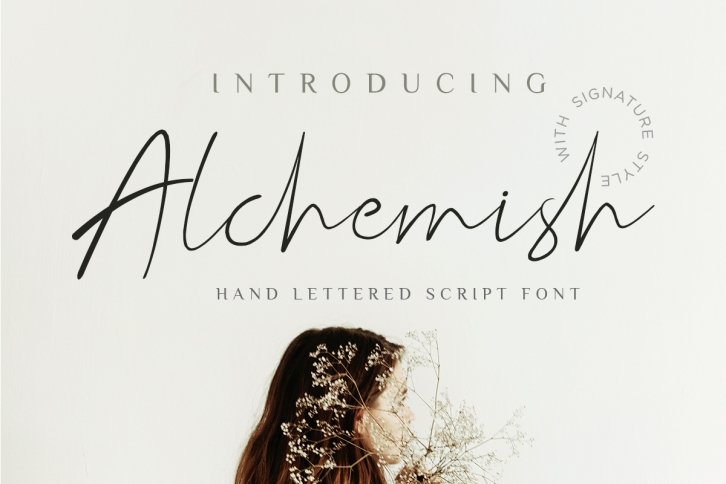
Alchemish Signature Script Font Download
Alchemish Signature Script is a beautiful font that was designed by Vermilione 99. It's a great choice for designers and creatives who need such a font. It was released on July 5, 2019 and the file size is 2.49 MB. Alchemish Signature Script may give a more youthful, expressive and casual look to your project. It is a very beautiful, refined, elegant, and high-quality font.